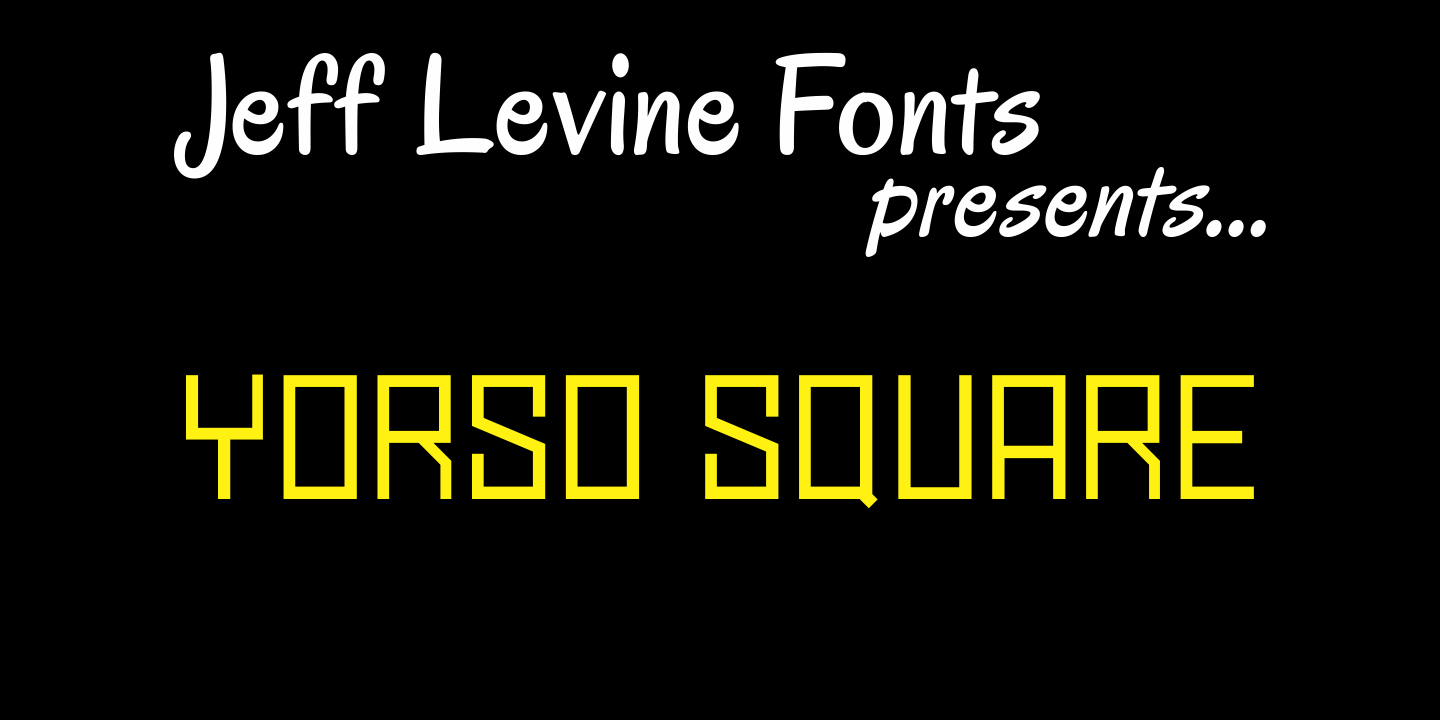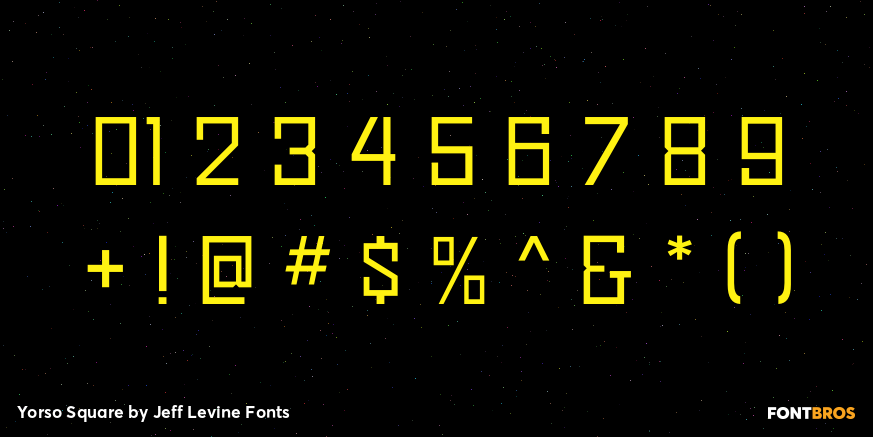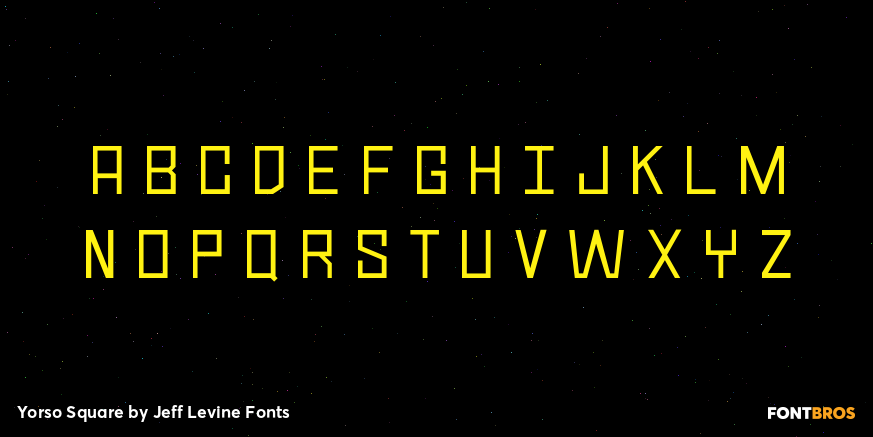
Yorso Square
By any stretch of the imagination, Yorso Square JNL is an imperfect font...by design! Taking a page from the elementary school projects of years past, this sans serif face is square and blocky... looking as if it was manually construced in haste with a ruler and pencil - just as a student might do for a book report cover, science fair project or class poster.
If you need a type face that shows the innocence of youth, or possibly a bit or urban audacity - Yorso Square JNL is your choice of lettering.